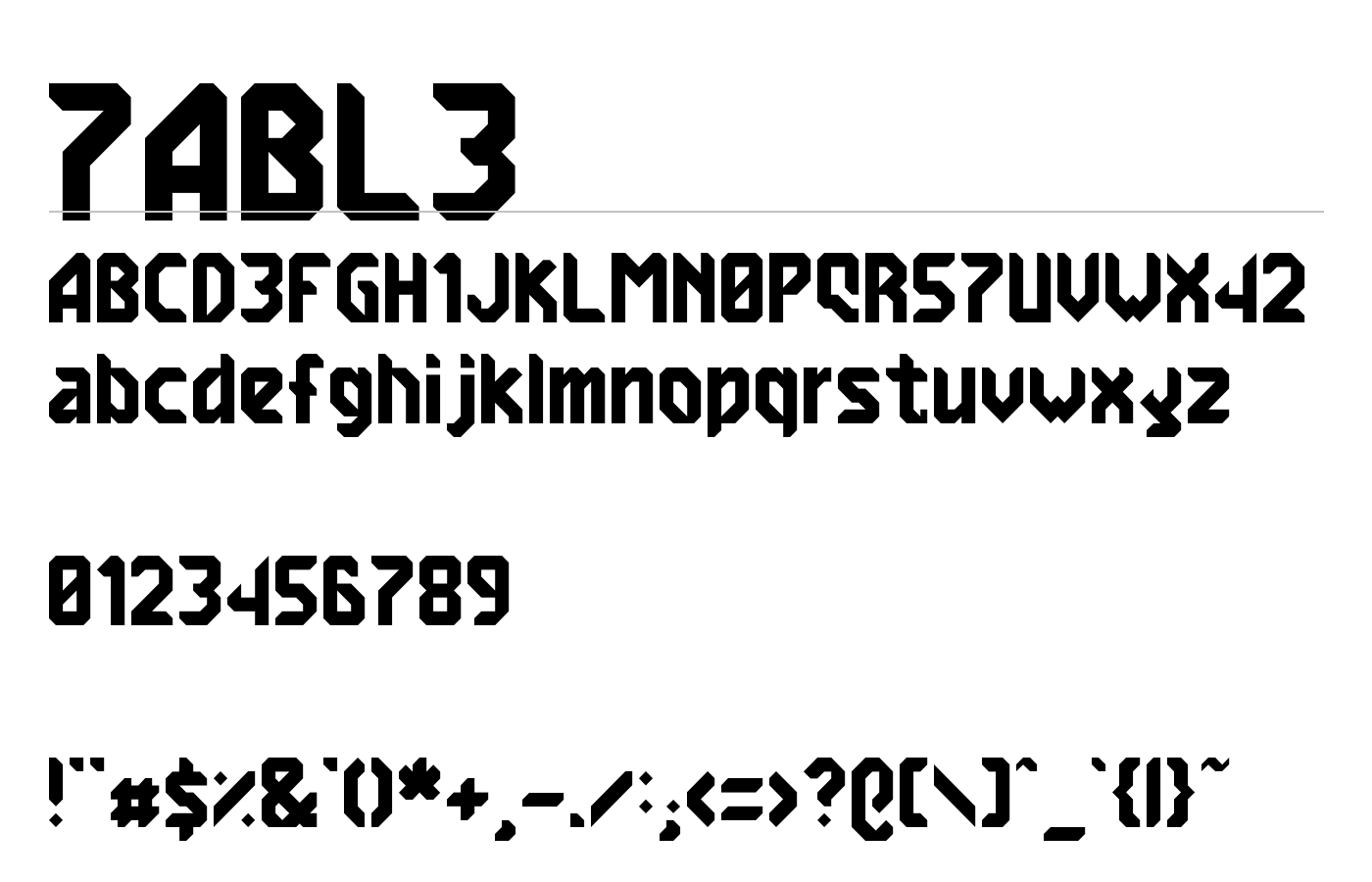
7ABL3 is a bold, geometric sans serif font with a strong, blocky appearance and sharp, angular corners that create a techno-industrial vibe. Its condensed letterforms and uniform stroke weight make it ideal for impactful headlines, logos, or branding that seeks a futuristic, edgy, or digital aesthetic. This font works best in settings where eye-catching, modern style and a sense of strength or innovation are desired.
7ABL3 Font
About 7ABL3 Font
| Font family | 7ABL3 Font |
| Designer | joaquim ramalho |